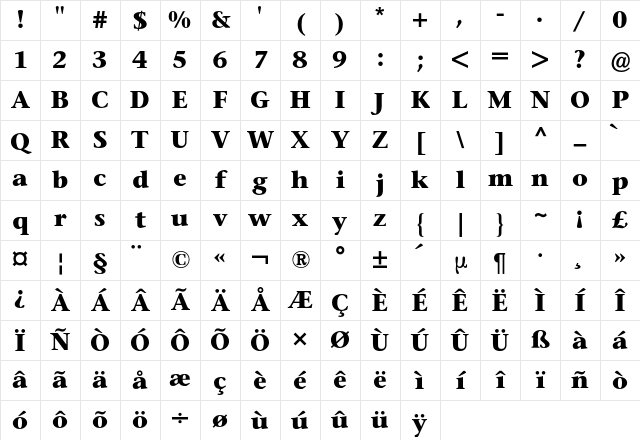
Stone Serif BQ Regular
Design Context for Stone Serif BQ
Stone Serif BQ carries the refined structure of traditional serif typography, with bracketed terminals and considered proportions that communicate credibility and craft.
Pro Tip: Use Stone Serif BQ for editorial body copy and considered headline work. Pair with a neutral sans for UI elements or captions to create a classic hierarchy.